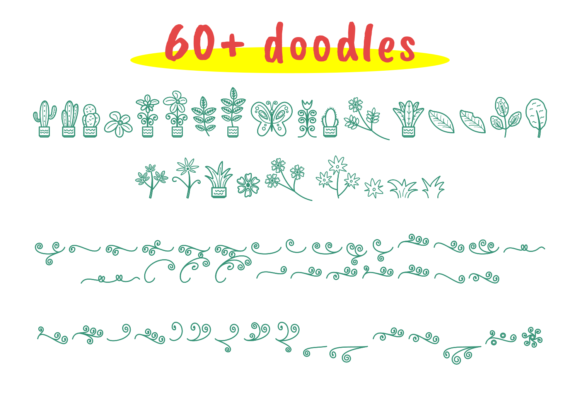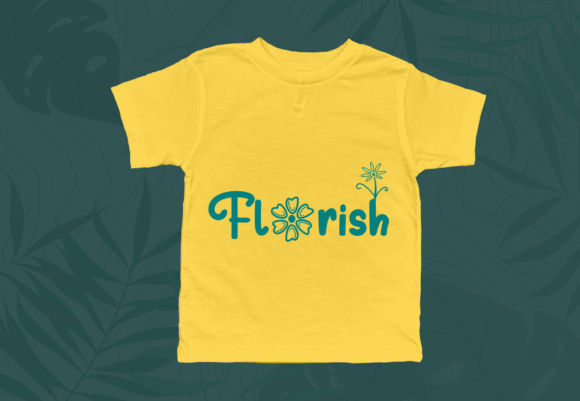
Introduction to Sneaty Clipart Font
Have you ever found yourself stuck in a creative rut, searching for the perfect element to bring your design to life? That’s exactly where I was when I stumbled upon the Sneaty Clipart Font – a game-changing collection of plants, cacti, leaves, flowers, and grass that has revolutionized my design process.
This high-quality font is more than just a design resource; it’s a treasure trove of creative possibilities. With its transparent background and stunning visuals, Sneaty Clipart Font is the perfect addition to any project. Whether you’re working on a logo, brochure, or social media graphic, this font is sure to elevate your design to the next level.
Key Features of Sneaty Clipart Font
- Unique Hand-Drawn Design: Sneaty Clipart Font features a distinctive, hand-drawn design that adds a touch of whimsy to any creative project.
- High-Quality Graphics: This font is designed with high-quality graphics in mind, ensuring crisp and clear visuals for your design resource.
- Transparent Background: The Sneaty Clipart Font includes transparent background options, allowing for seamless integration into any design project.
- Resolution: The font is designed with high-resolution graphics in mind, ensuring it looks great at any size or resolution, from small icons to large graphics.
- Perfect for Creative Projects: The Sneaty Clipart Font is ideal for a wide range of creative projects, including digital art, graphic design, and more.
Honest Review: Sneaty Clipart Font
I recently came across the Sneaty Clipart Font, a free download that promises to elevate any creative project with its high-quality design. After taking a closer look, I’m excited to share my honest thoughts on this design resource.
- ✨ The Sneaty Clipart Font has a clear and transparent background, making it easy to layer over other design elements.
- ✨ The font is highly customizable, allowing users to adjust the size, color, and style to fit their project’s needs.
- ⚠️ The font is relatively limited in terms of characters and symbols, which may be a drawback for some users.
Overall, I’m impressed with the Sneaty Clipart Font’s high quality and versatility. While it may have some limitations, it’s an excellent resource for designers working on creative projects, especially those on a budget. If you’re looking for a reliable design resource, the Sneaty Clipart Font is definitely worth checking out.
How to Use Sneaty Clipart Font
The Sneaty Clipart Font is a high-quality design resource that offers a wide range of creative and playful characters. It’s perfect for adding a fun touch to your designs, and the transparent background makes it easy to use in various design projects.
Tips for Getting the Most Out of Sneaty Clipart Font
To get the most out of the Sneaty Clipart Font, try combining it with other design elements, such as bold colors and geometric shapes, to create a unique and eye-catching design.
The Sneaty Clipart Font is perfect for a variety of creative projects, including:
- Children’s books and educational materials
- Party invitations and decorations
- Marketing materials and social media graphics